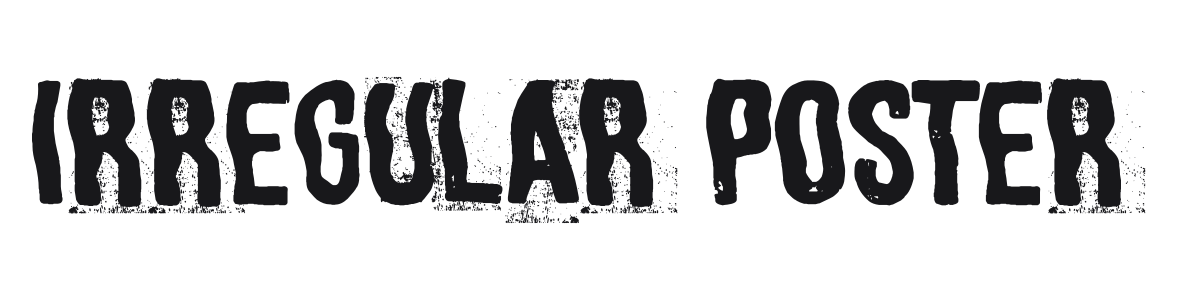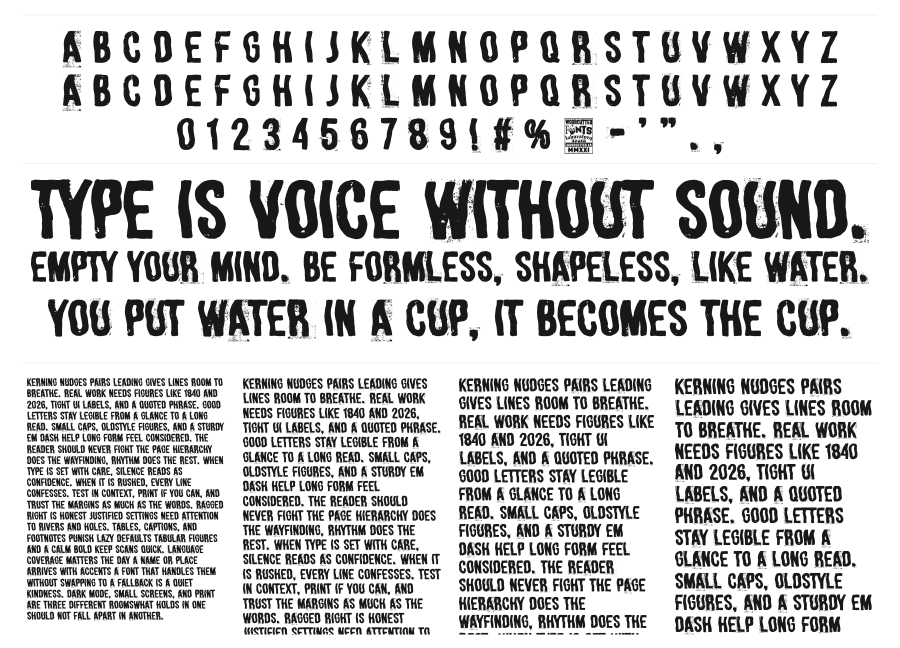
Irregular Poster
Irregular Poster is a heavy distressed display font by Woodcutter with deliberately eroded, ink-worn characters and an uneven baseline that gives every word a hand-stamped, anarchic feel. The texture is dense and rough, pulling from punk and street-art traditions. It reads instantly as something torn from a flyer or screenprinted at the edge of legibility.